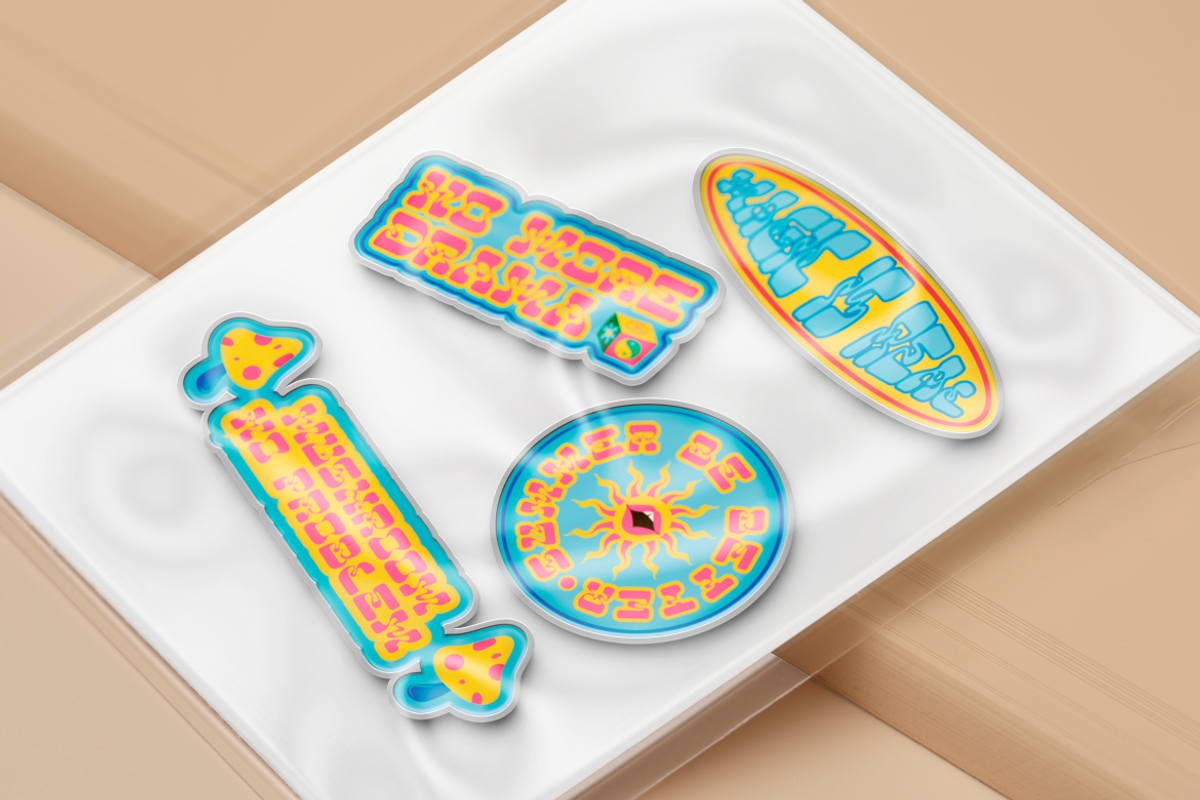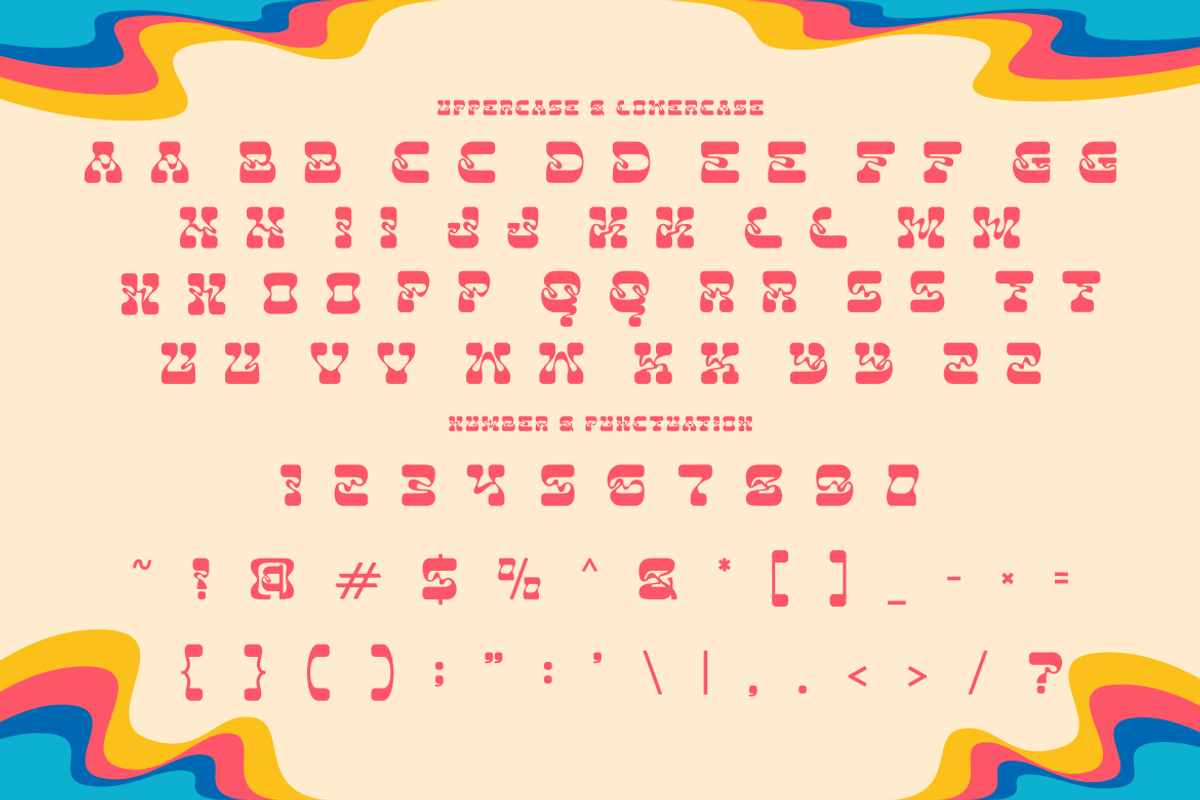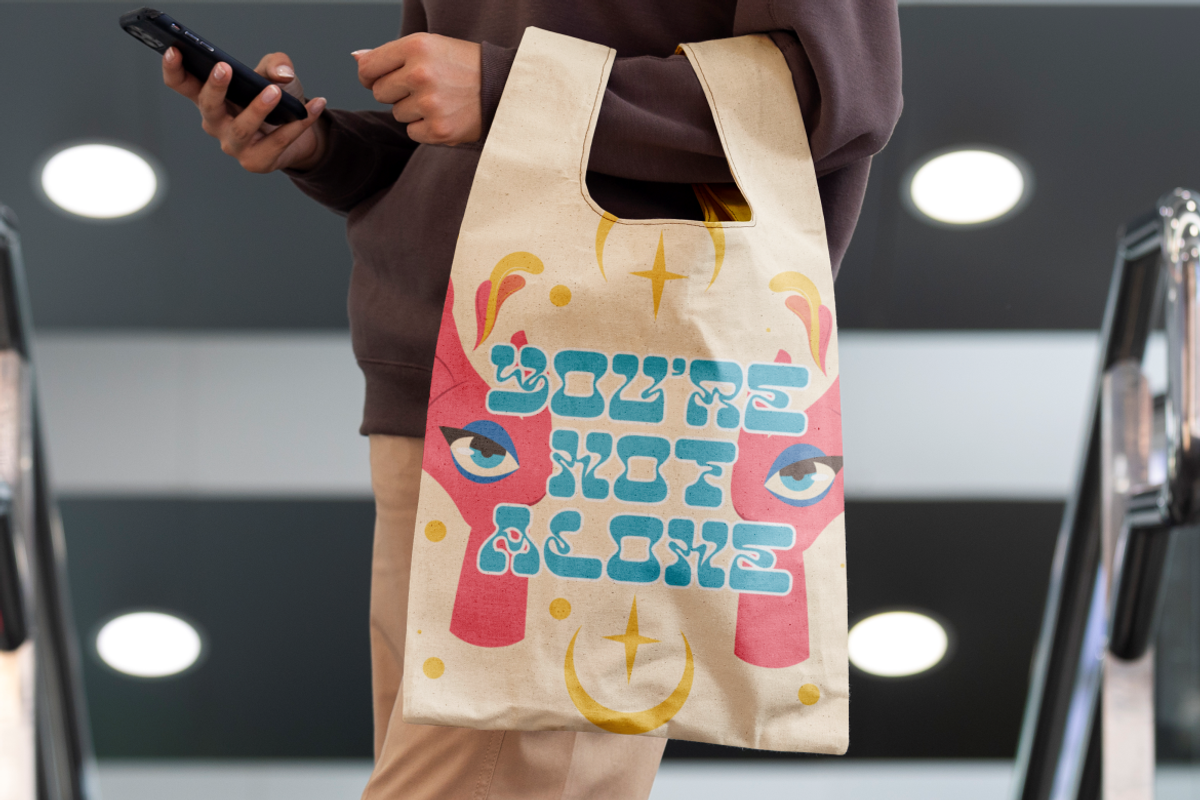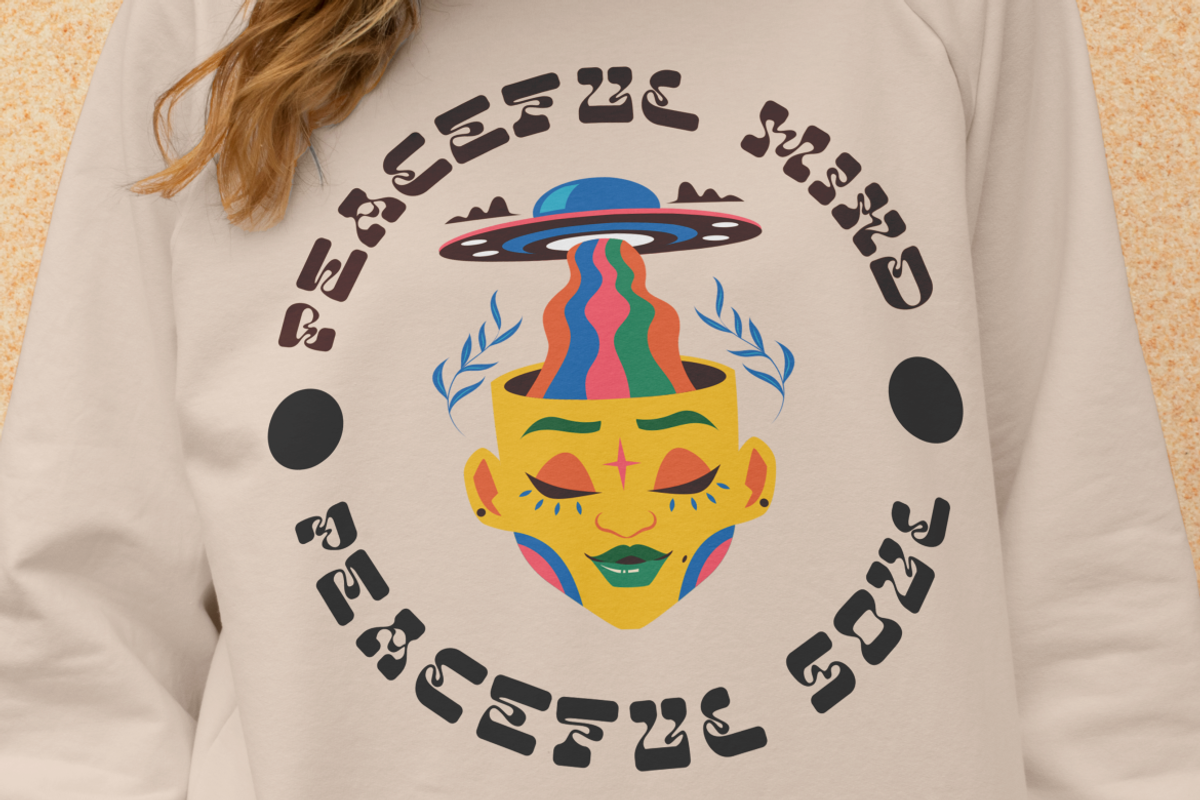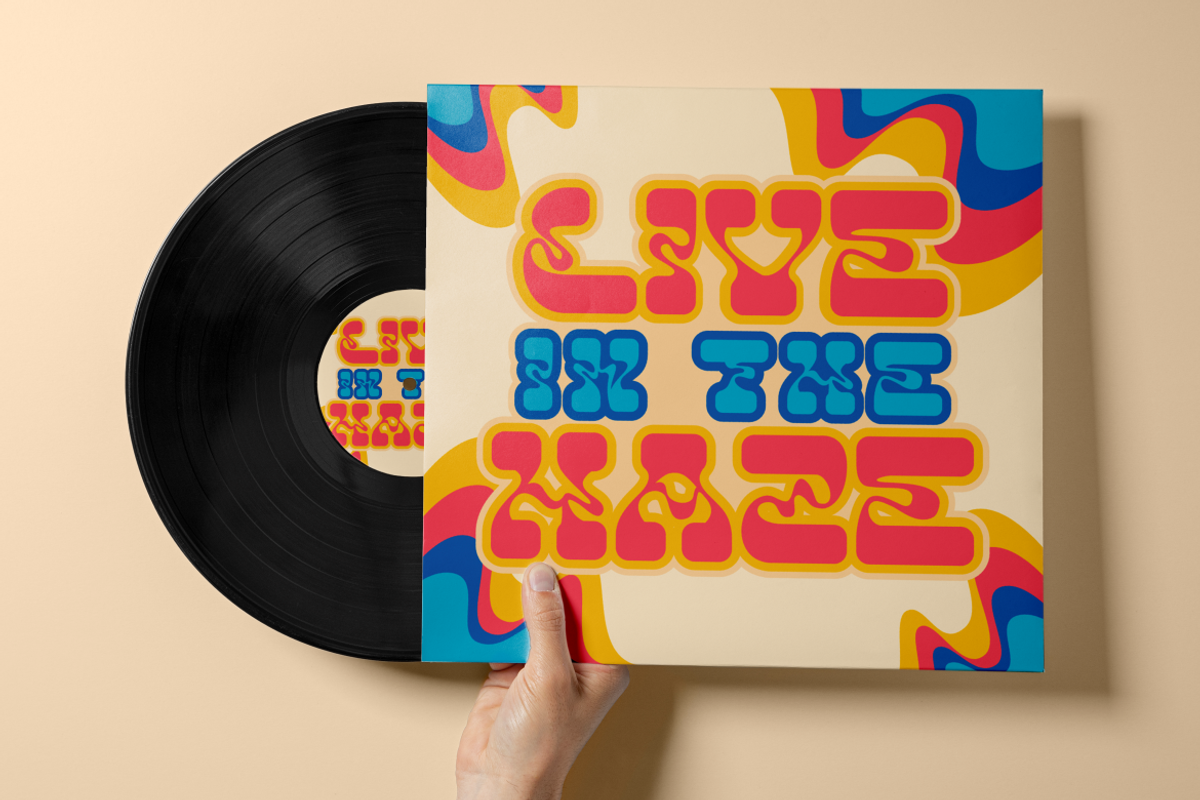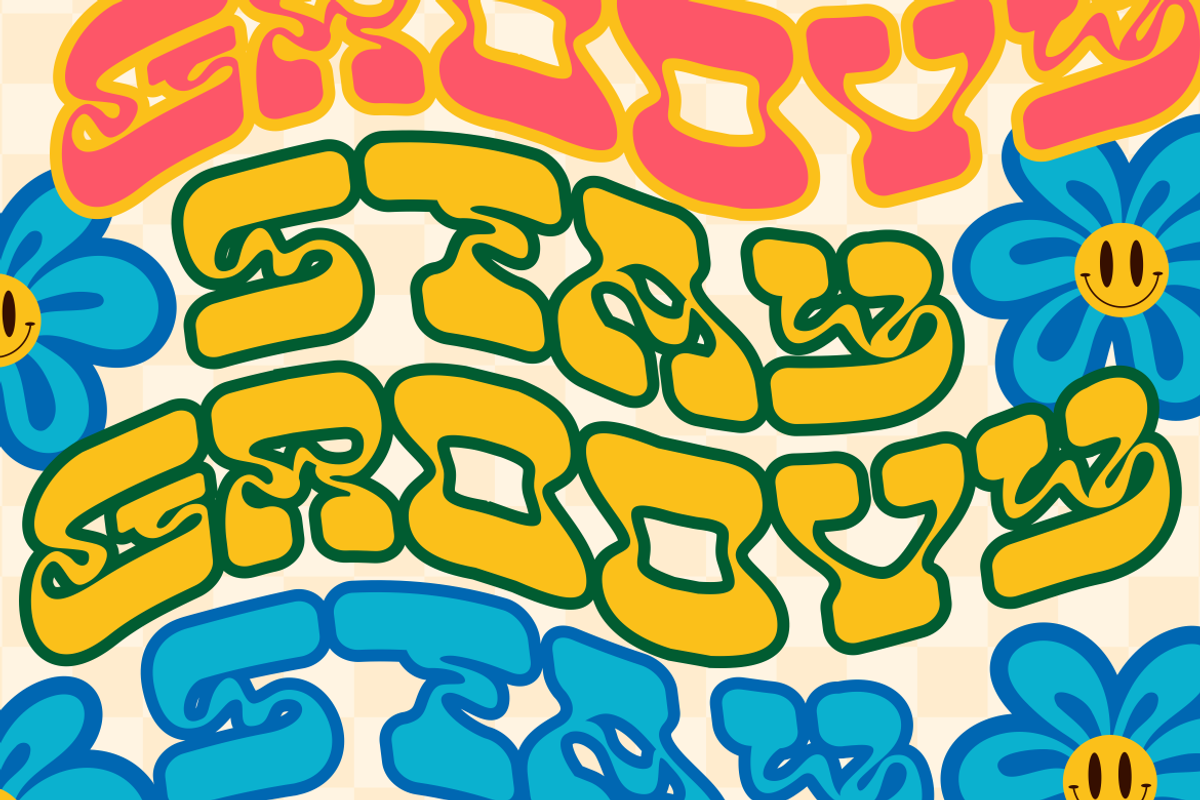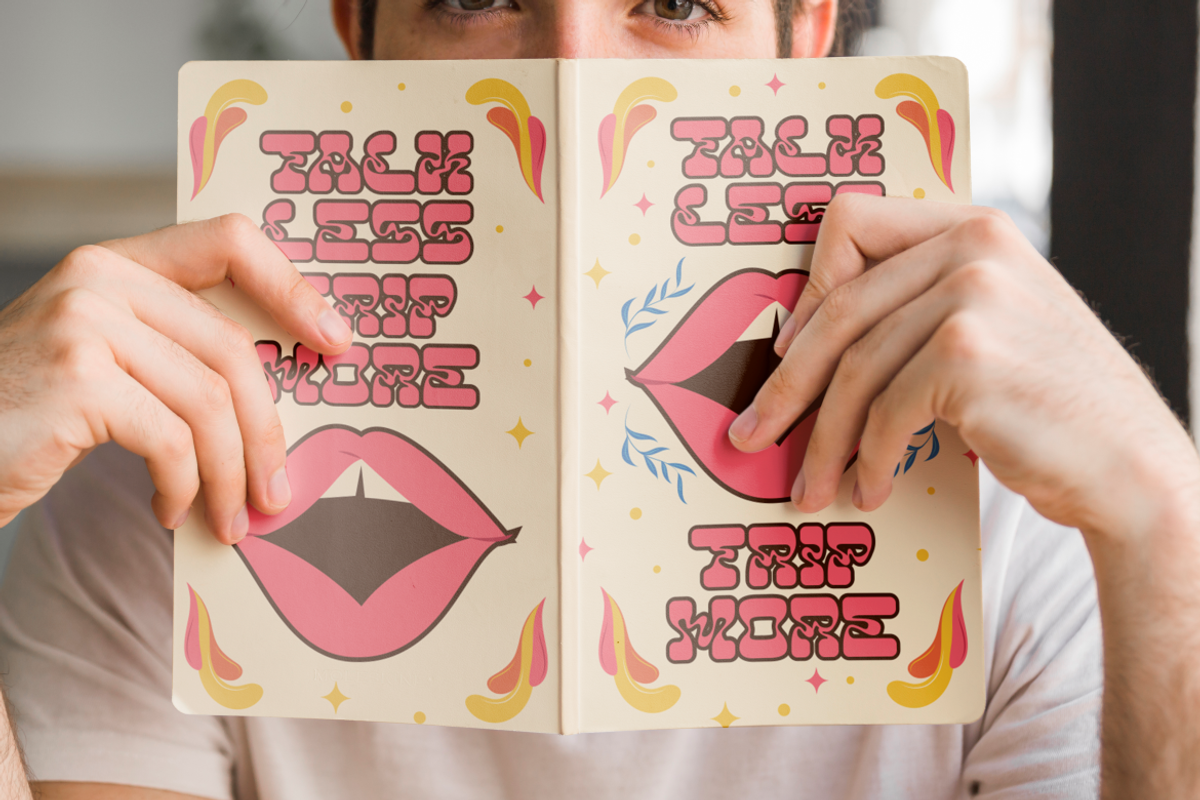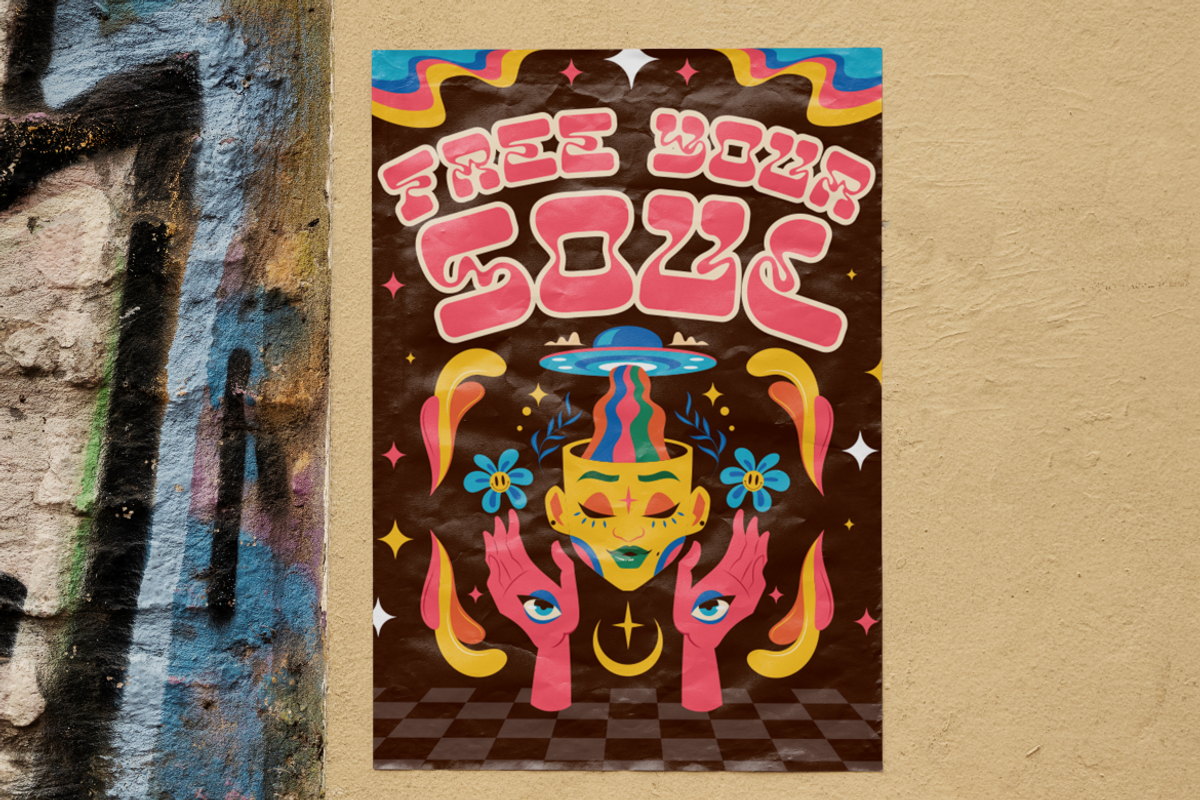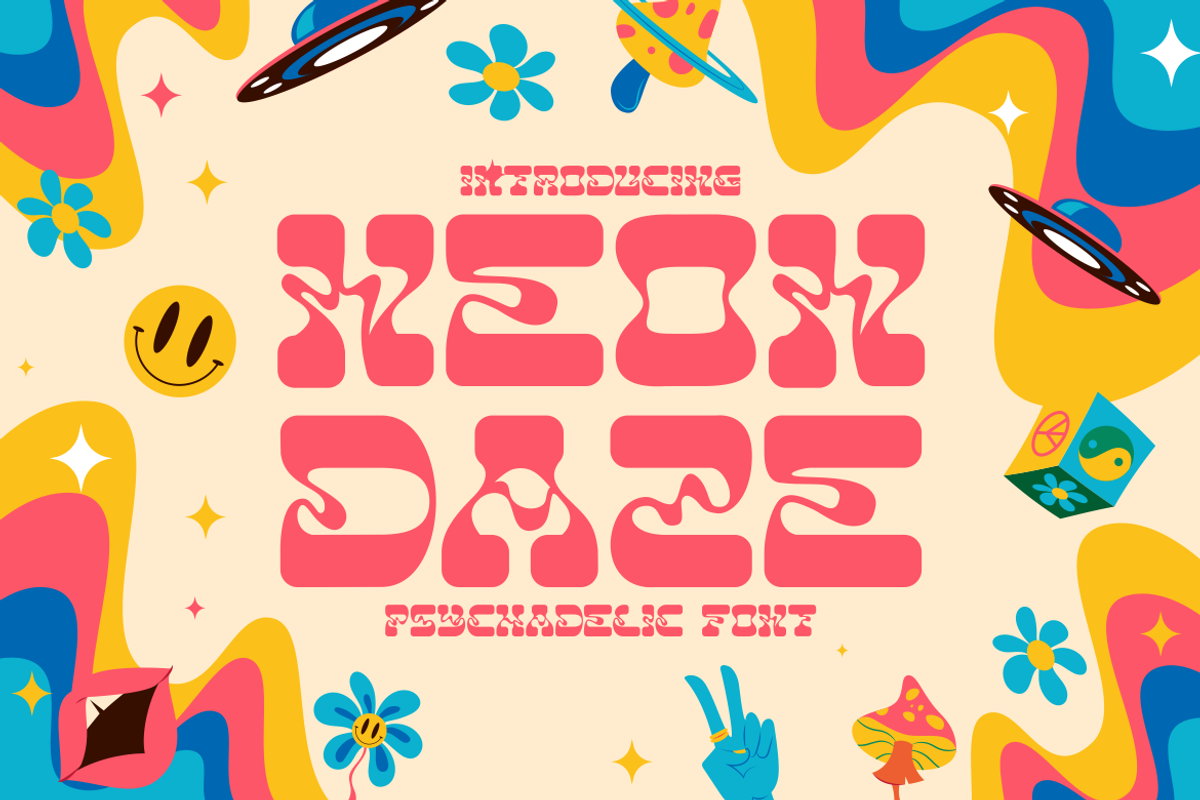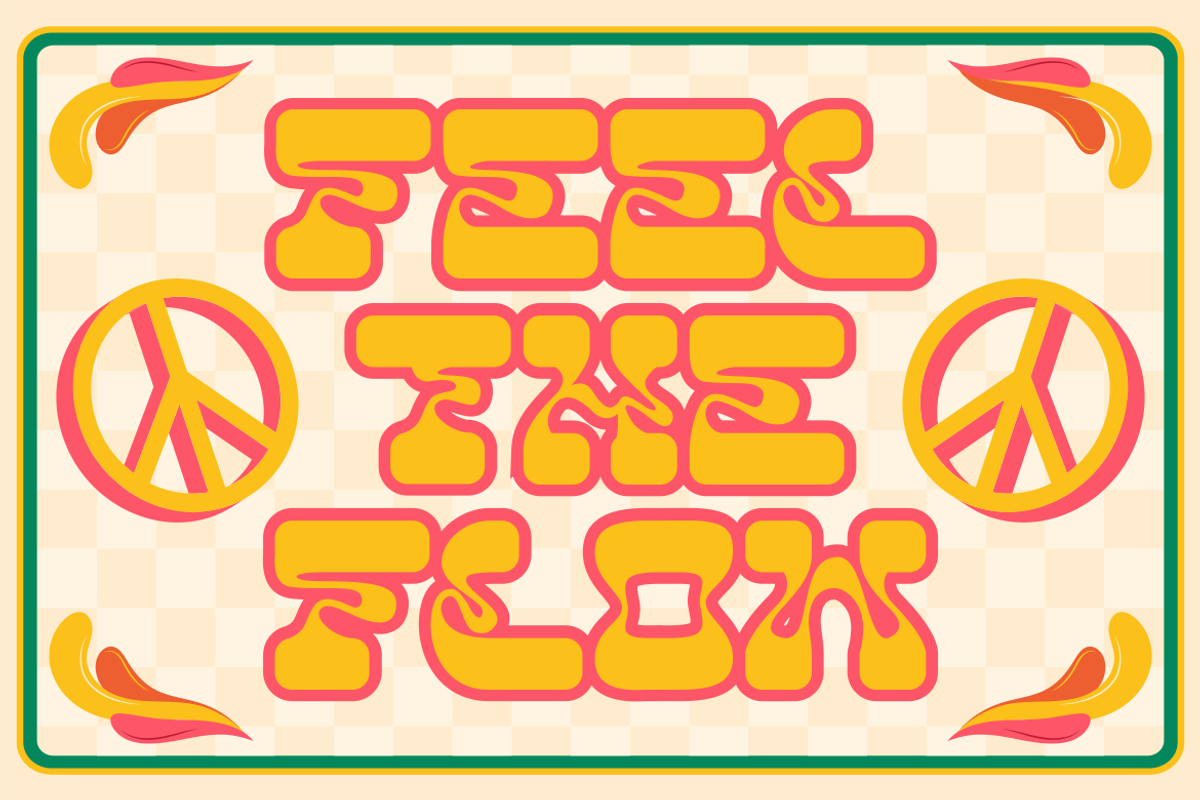
Neon Daze - Psychadelic Font
Step into a world of vibrant imagination with Neon Daze, a bold and whimsical psychedelic font that brings the spirit of the retro era to life. This font features thick, wavy letterforms with flowing curves that create a dynamic, surreal aesthetic, perfect for designs that demand attention. Inspired by the groovy visuals of the 60s and 70s, each character is a playful blend of soft corners and eccentric shapes. The warm, energetic color palette of pinks, yellows, and blues in its presentation further enhances its funky, colorful, and joyful vibe, making it an excellent choice for creative, fun-loving projects.
Ideal for posters, branding, stickers, packaging, and social media graphics, Neon Daze adds a nostalgic twist to any design while maintaining a fresh, modern appeal. Whether you're working on festival-themed merchandise, psychedelic artwork, or a vintage-inspired logo, this typeface brings an explosion of character and personality to your designs. Elevate your visual storytelling with Neon Daze, a font that radiates positivity, free-spirited creativity, and retro charm.